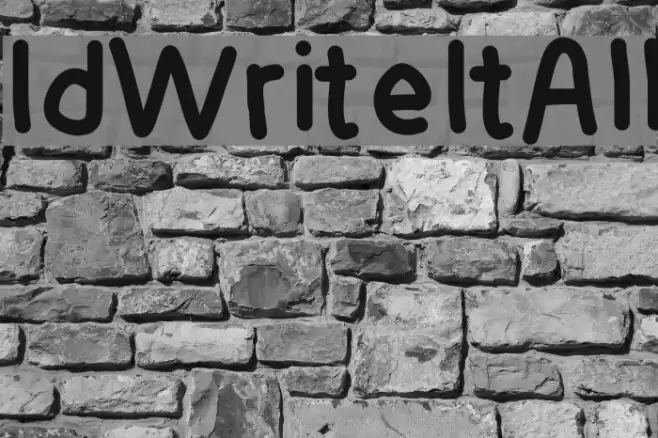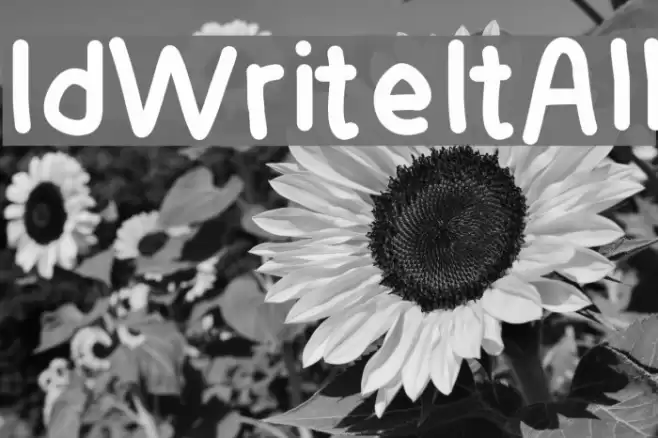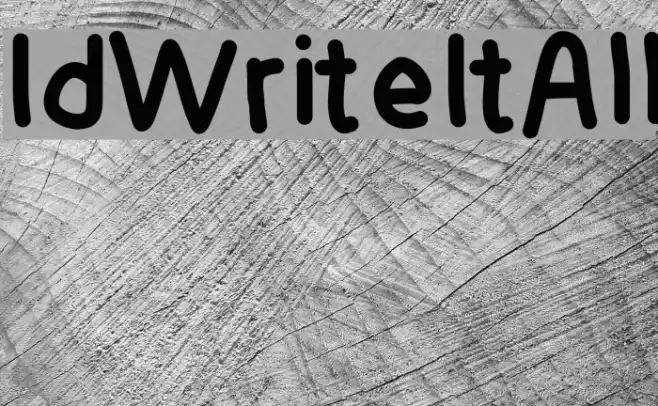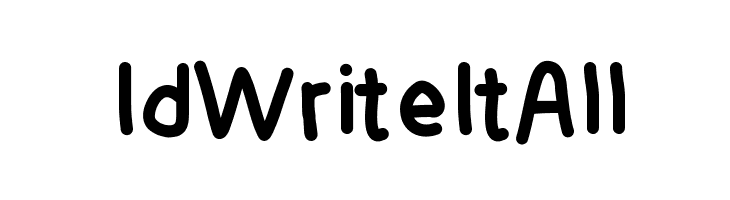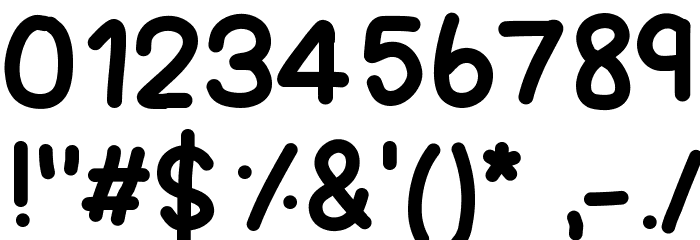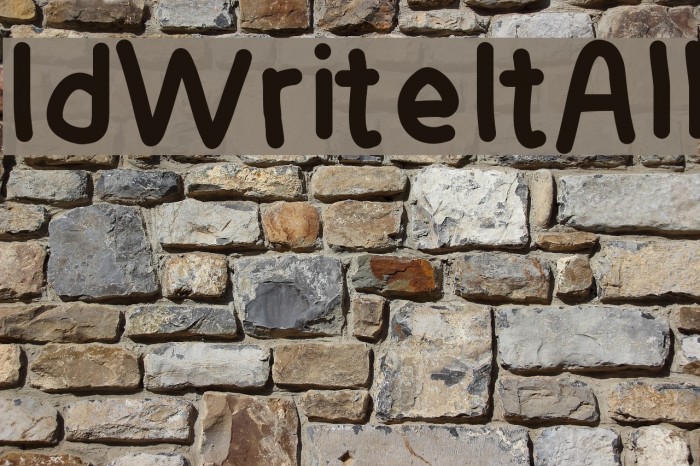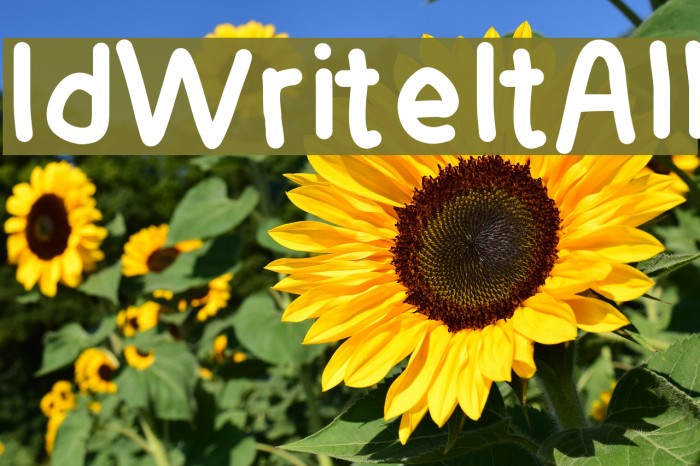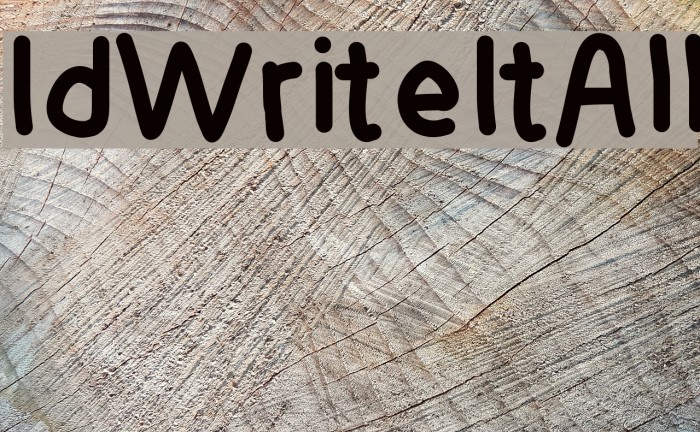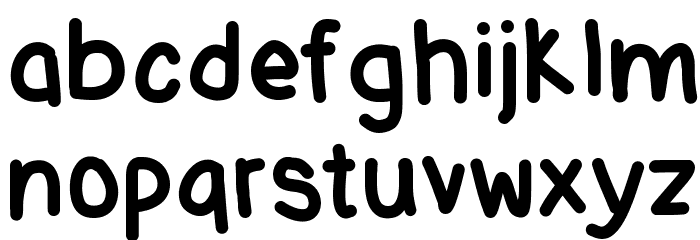
IdWriteItAll Font
IdWriteItAll Description
This playful and rounded font features a casual, handwritten style with smooth curves and a friendly appearance. The letters are bold and slightly irregular, giving a whimsical and approachable feel. The uppercase and lowercase letters maintain a consistent style, with rounded edges and a uniform stroke width. Numbers and special characters follow the same design principles, ensuring a cohesive look across all glyphs. The font's informal nature makes it suitable for projects that require a personal touch or a fun, lighthearted vibe.
A playful, rounded, and handwritten-style font with a friendly appearance from Uncategorized fonts.
- Proposed Projects: Ideal for children's books, greeting cards, playful branding, and casual invitations.
- Overall Style: Playful
- Use Case: Headlines, Logos, Informal text